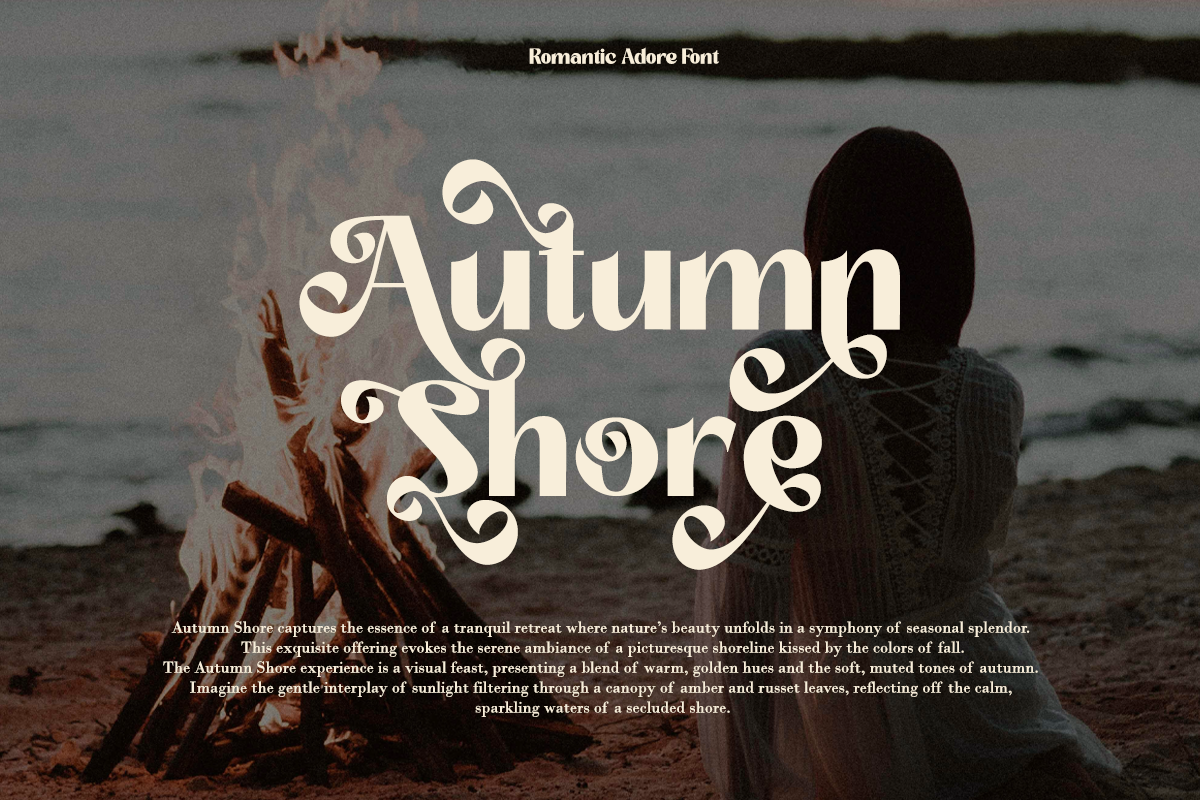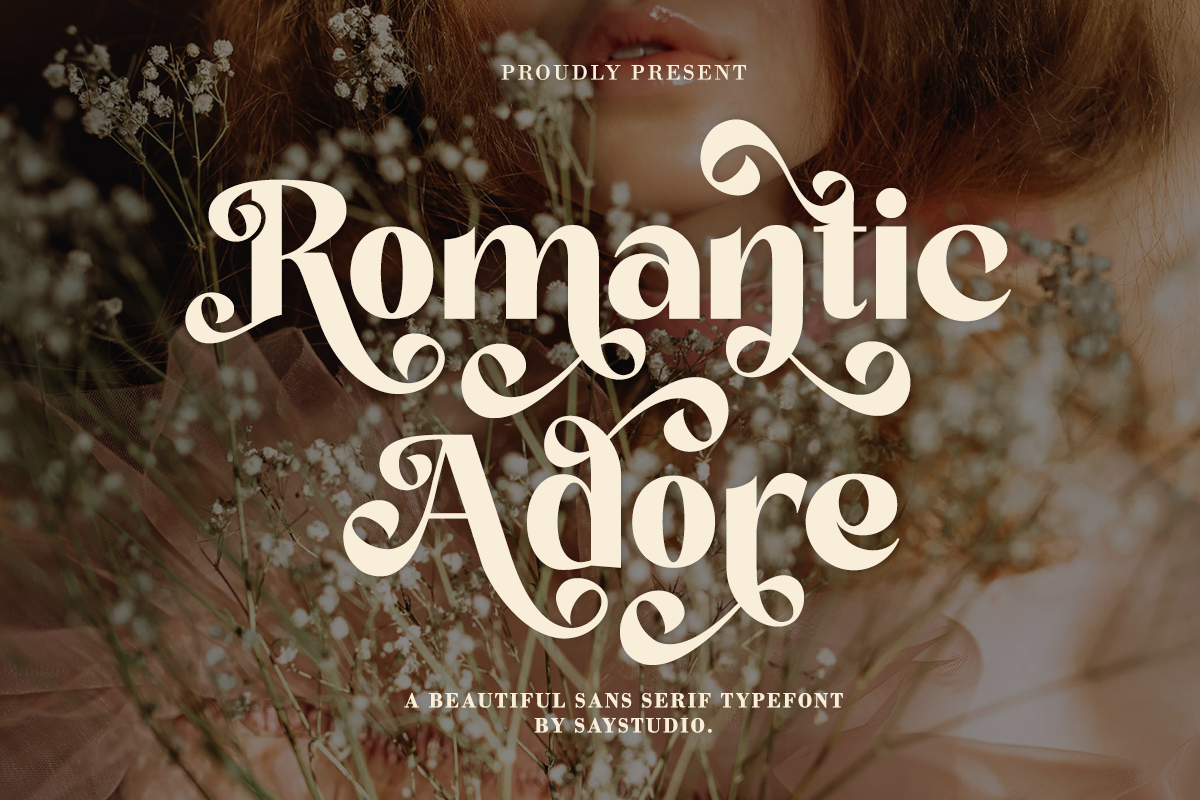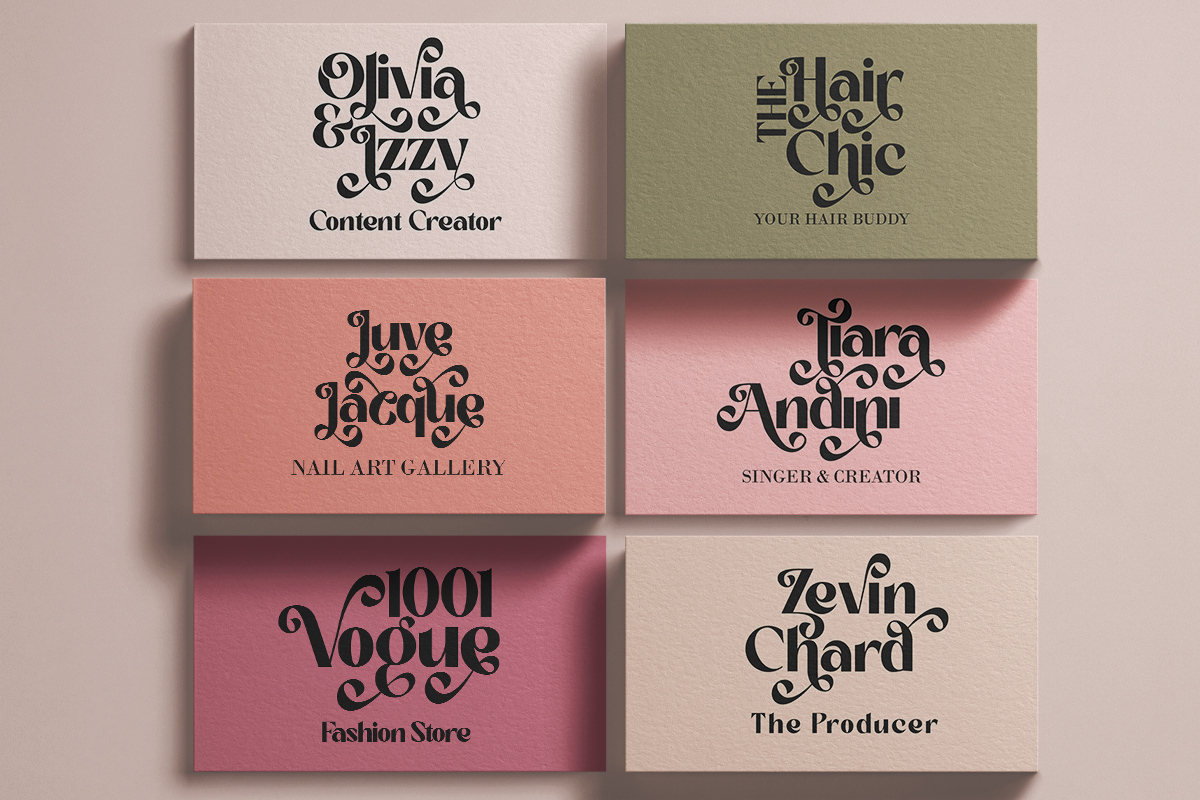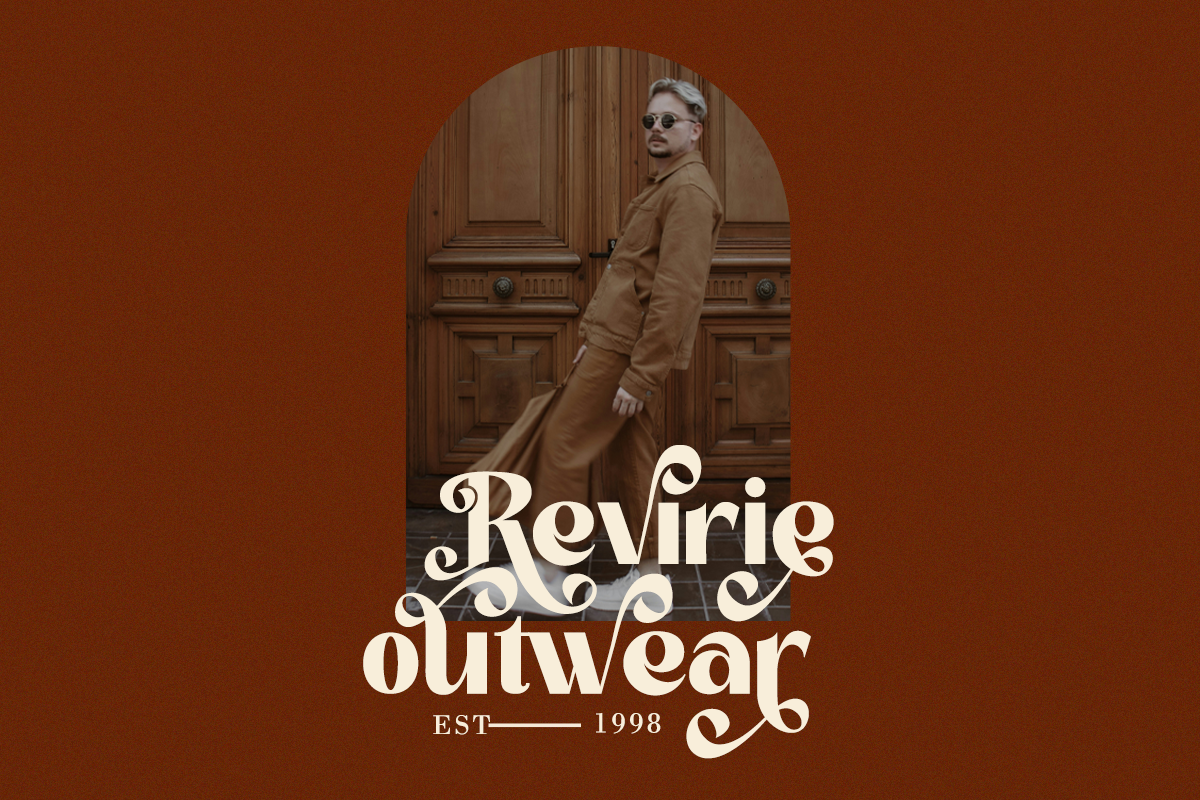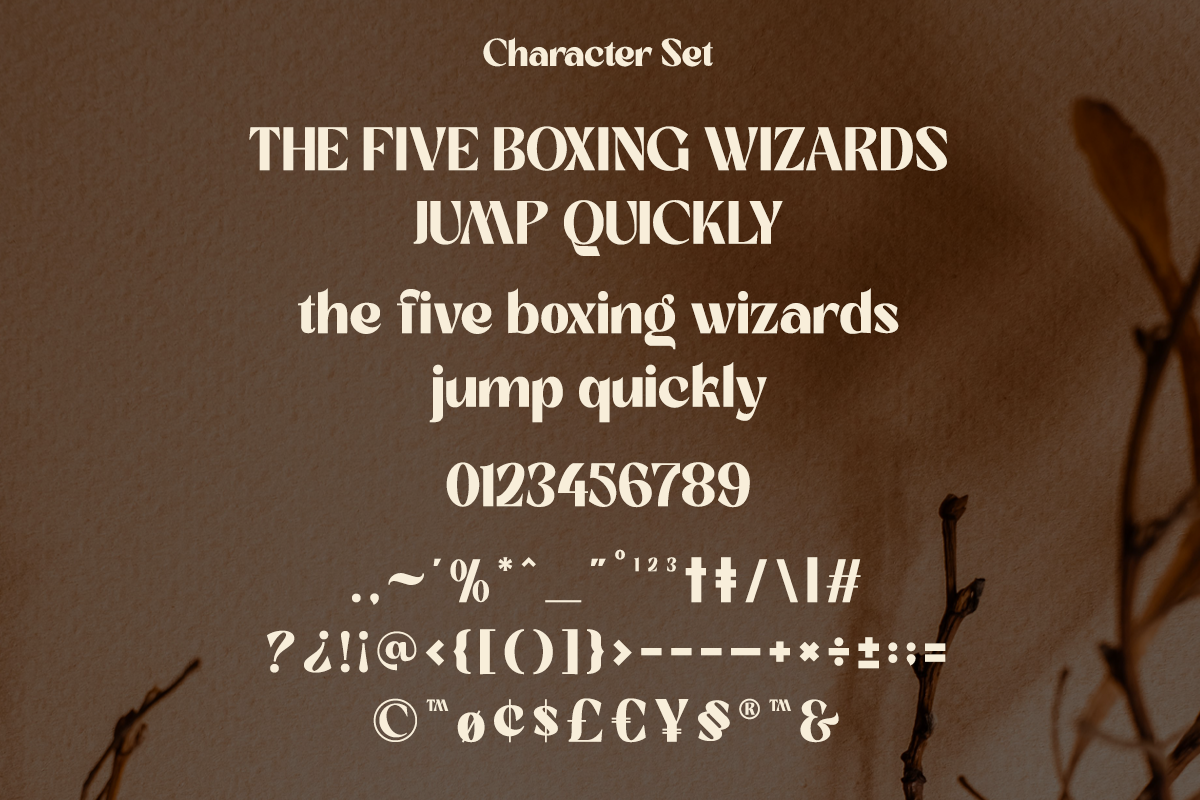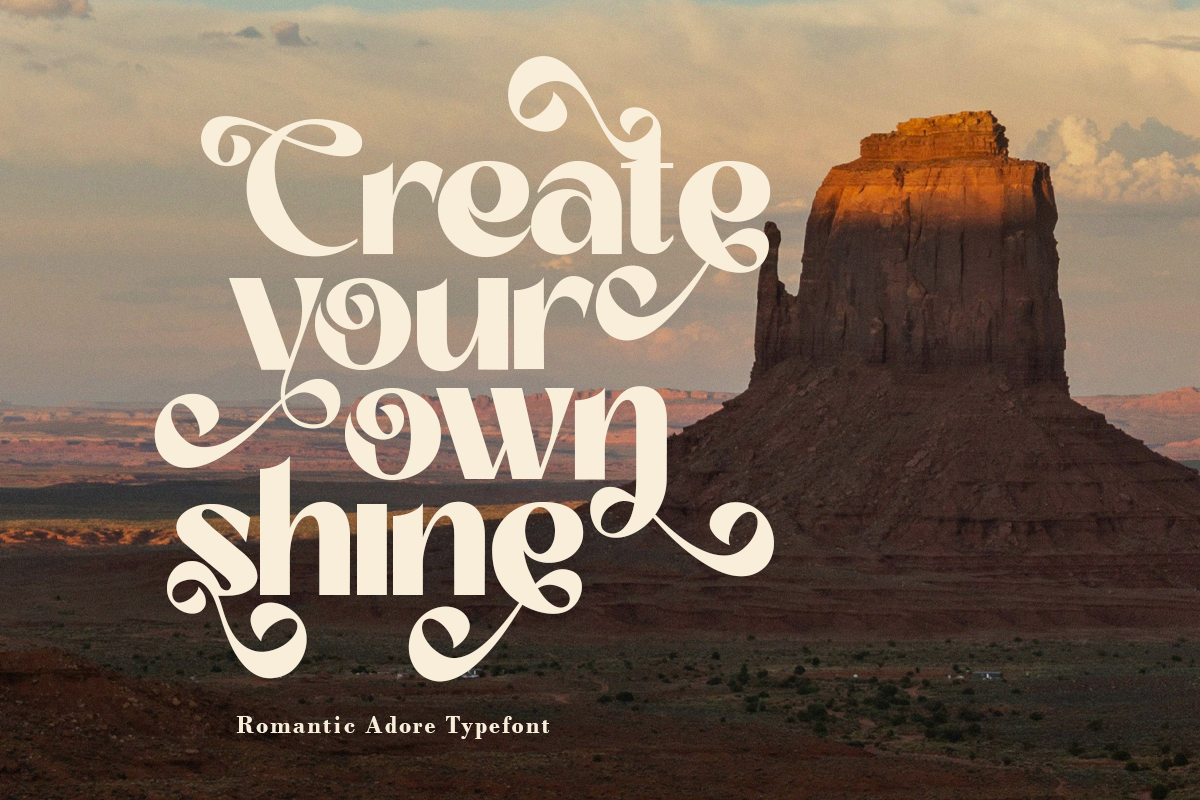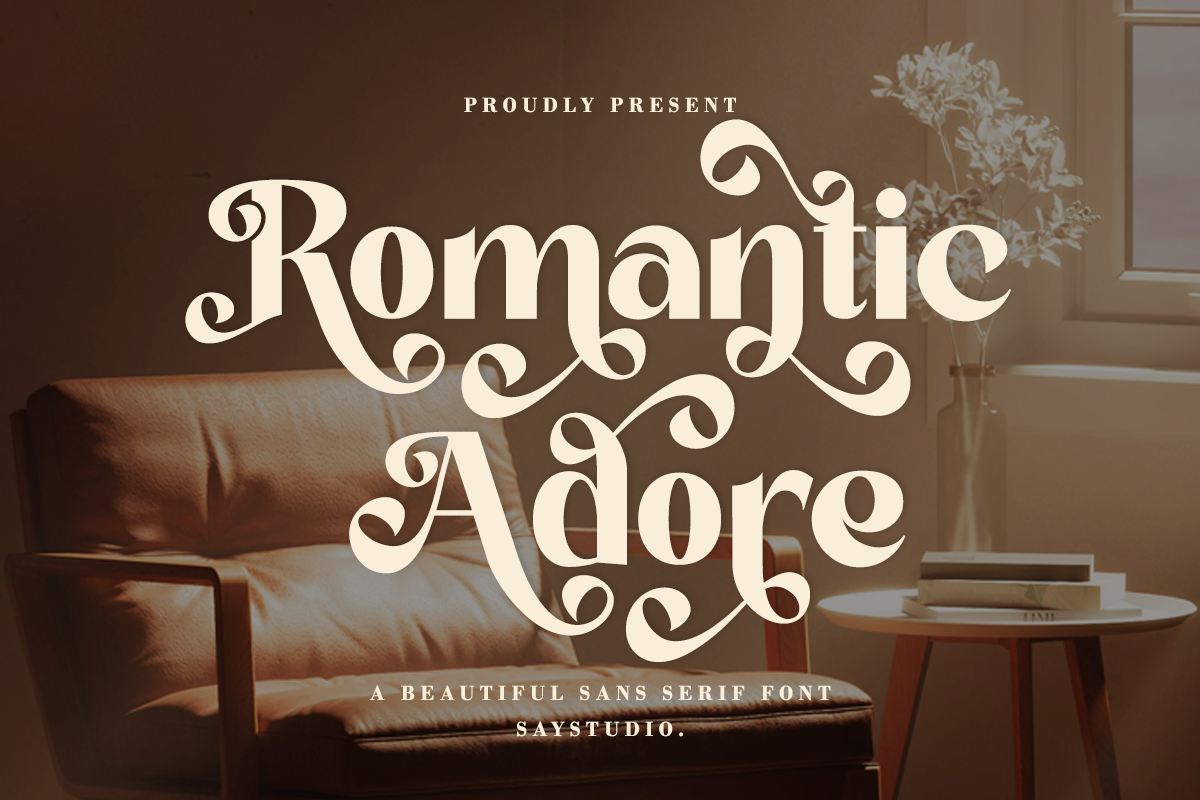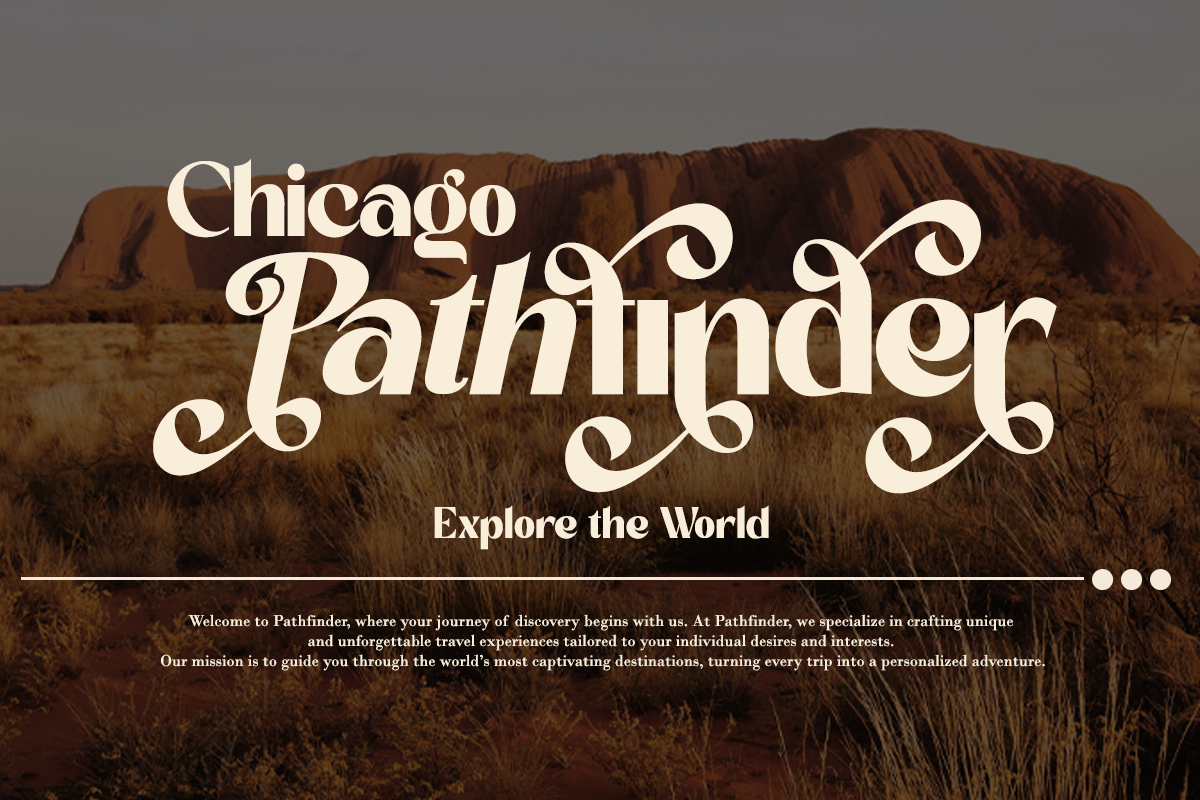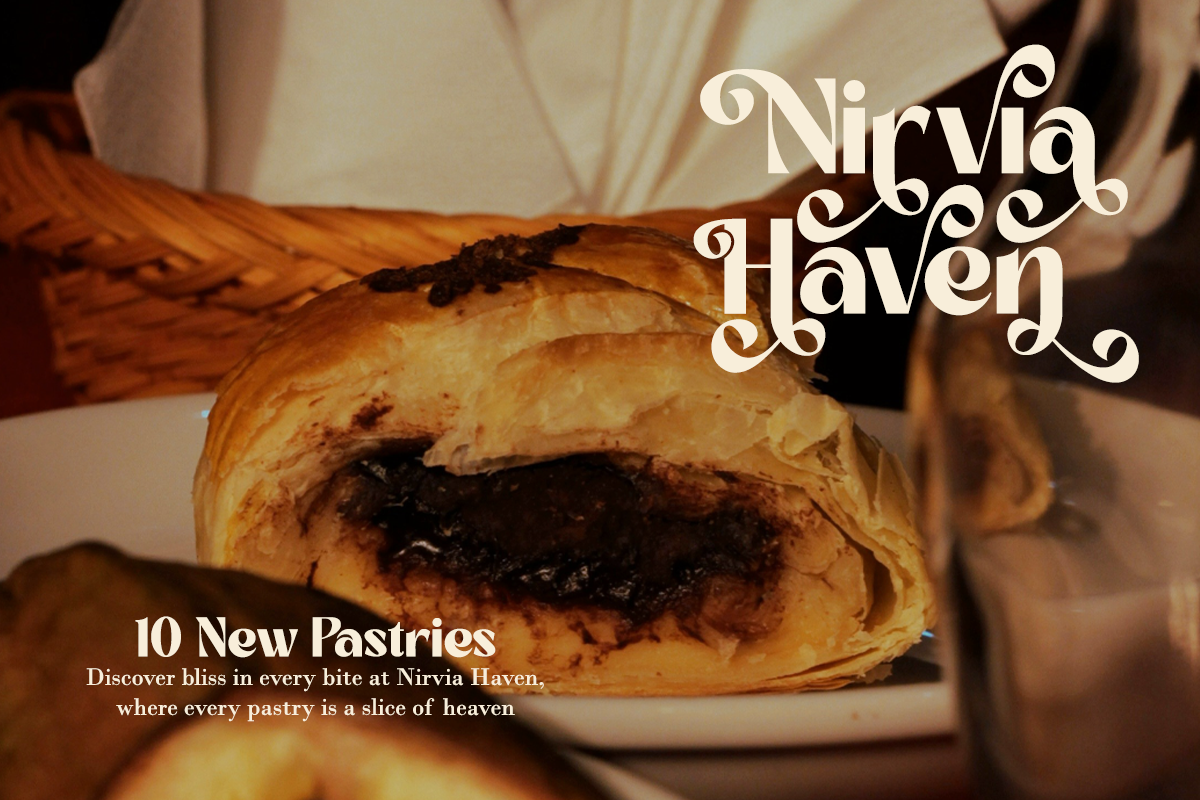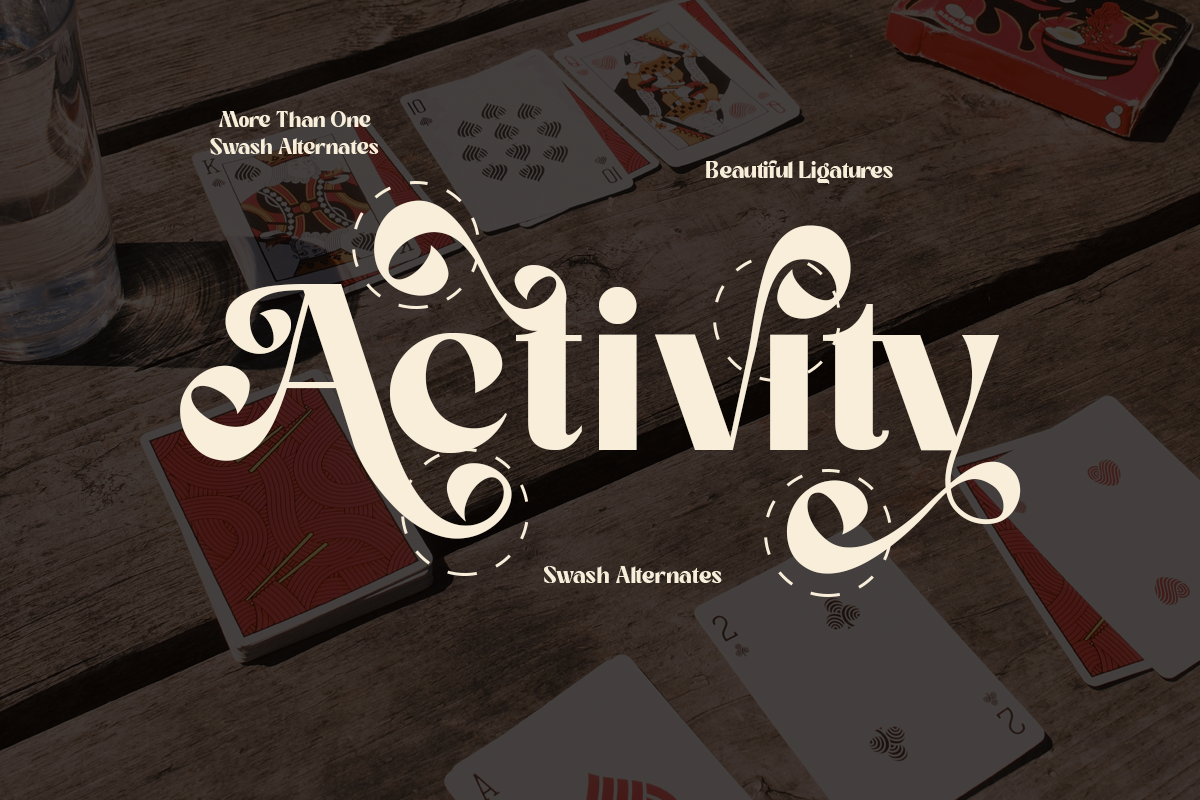
Romantic Adore - Beautiful Sans Font
Romantic Adore is a beautiful sans font . Made with accurate accuracy with beautiful curves. With swash alternative characters and ligatures makes your project will be awesome!
Romantic Adore perfect for wedding invitation, editorial projects, Logo design, web font, clothing branding, product packaging, magazine headers, or simply as a stylish and make your work even more amazing.
- Beautiful Alternates & Ligatures